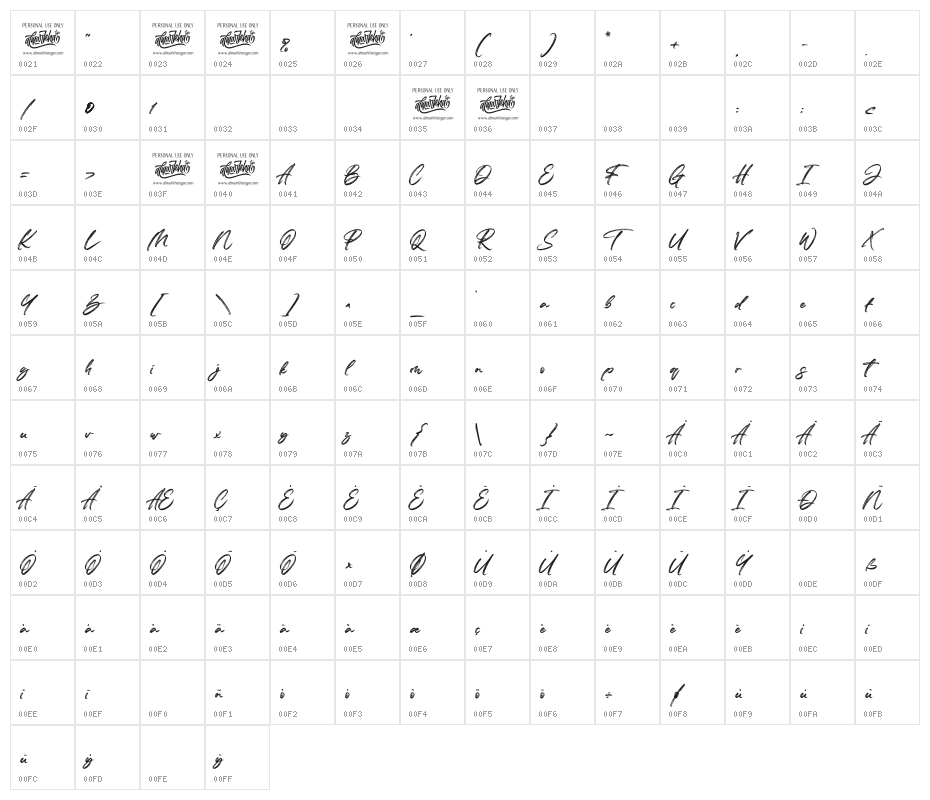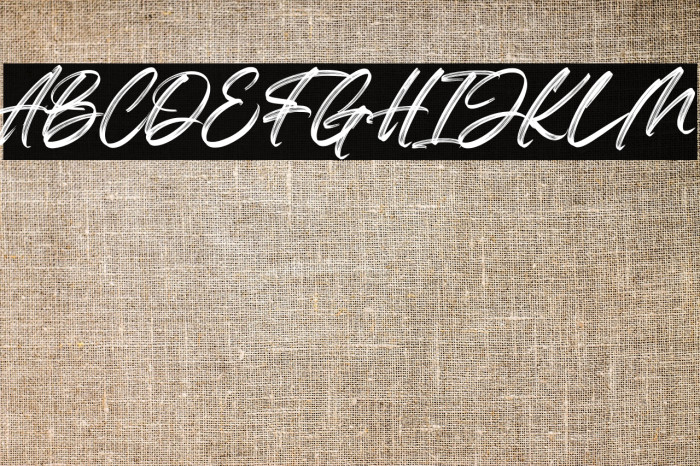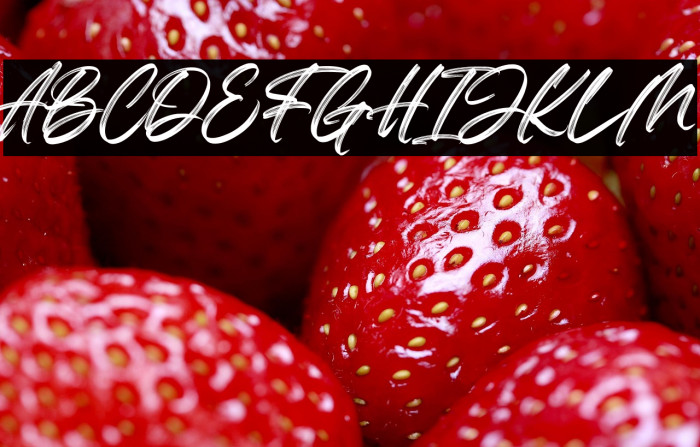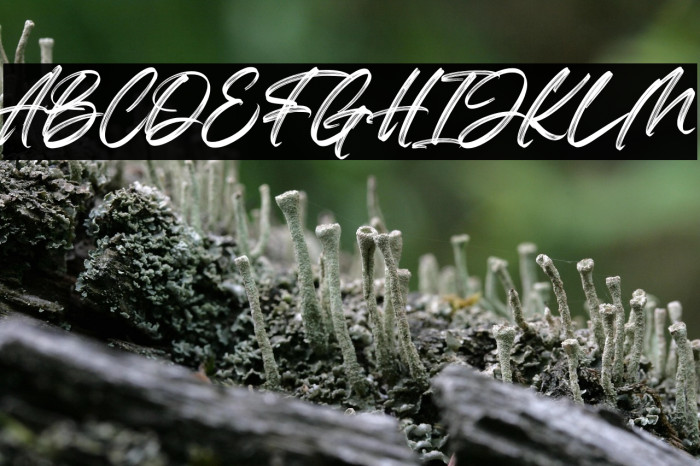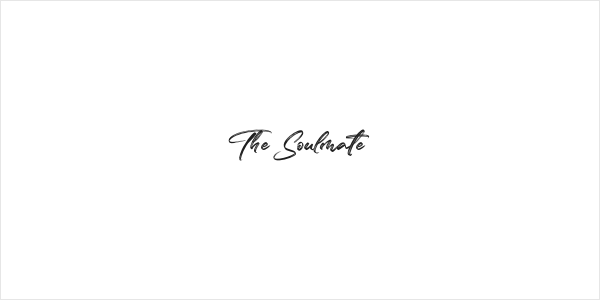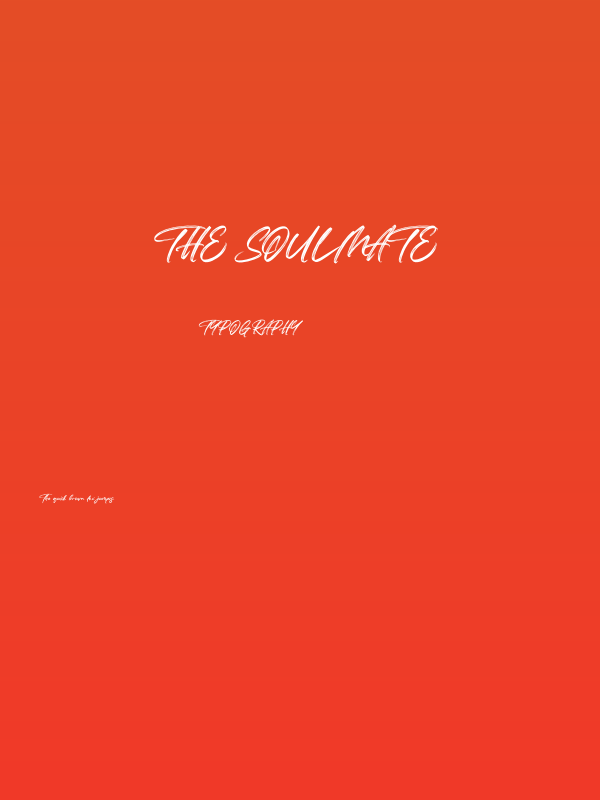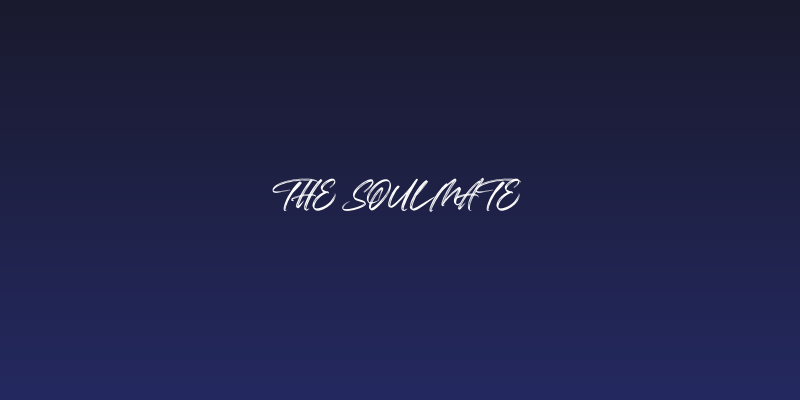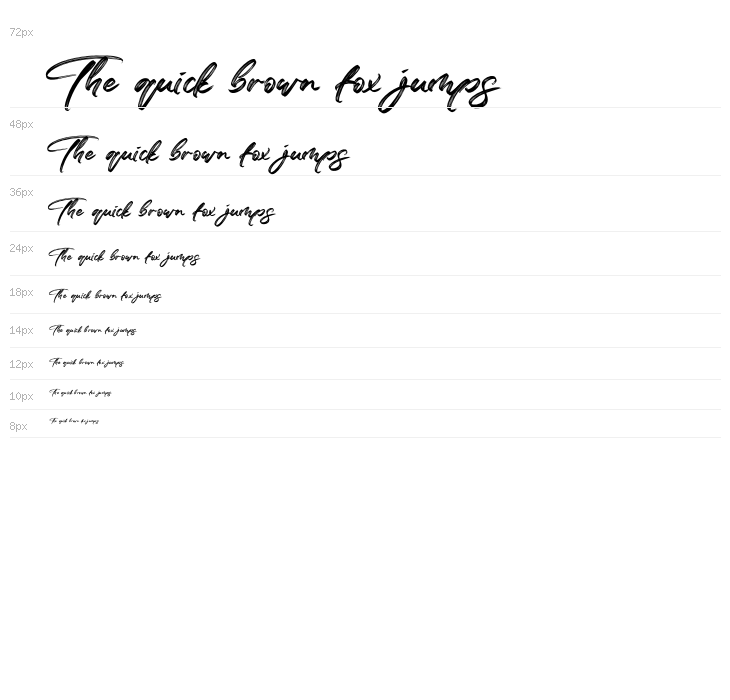
The Soulmate Font
The Soulmate Description
This font features a dynamic and expressive handwritten style, characterized by fluid strokes and a natural flow. The uppercase letters are bold and sweeping, with a sense of movement that adds a lively touch to any design. The lowercase letters maintain the same fluidity, offering a cohesive look throughout. The numerals and special characters are crafted with the same attention to detail, ensuring consistency across all elements. This font's artistic flair makes it ideal for projects that require a personal and creative touch.